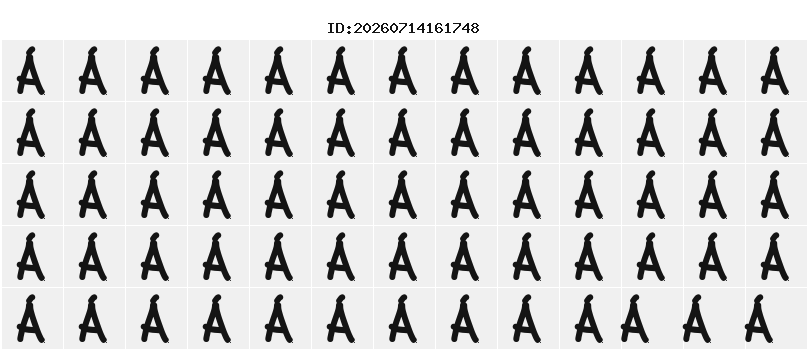
JCAguirreP - Libre Preview
About JCAguirreP - Libre.ttf
JCAguirreP - Libre.ttf is a modern, elegant sans-serif font designed for ultimate readability and visual harmony. Perfect for branding, headlines, web design, and print materials.